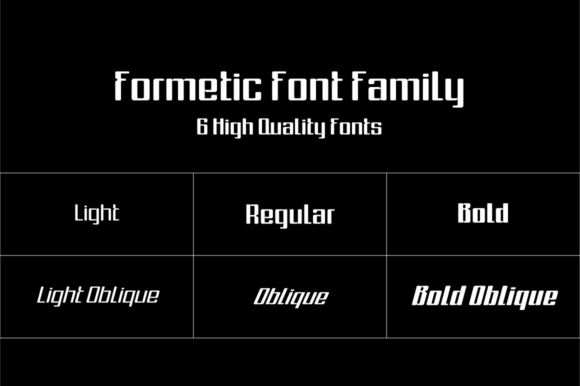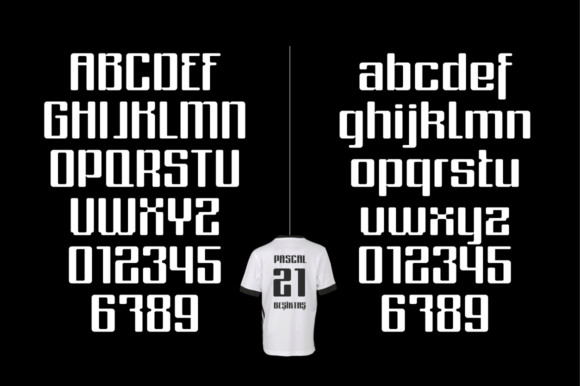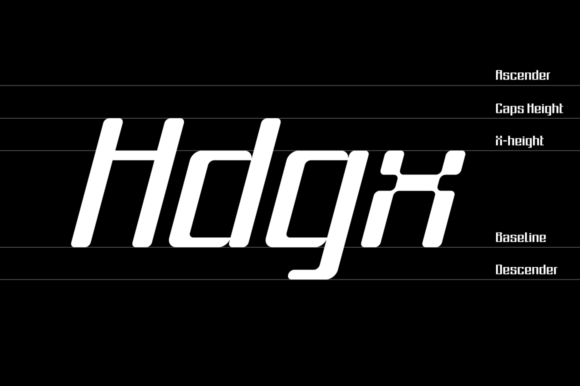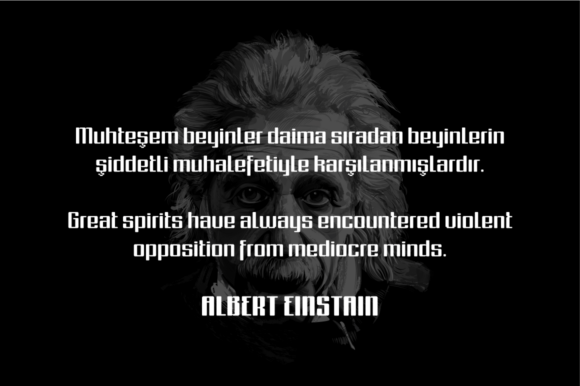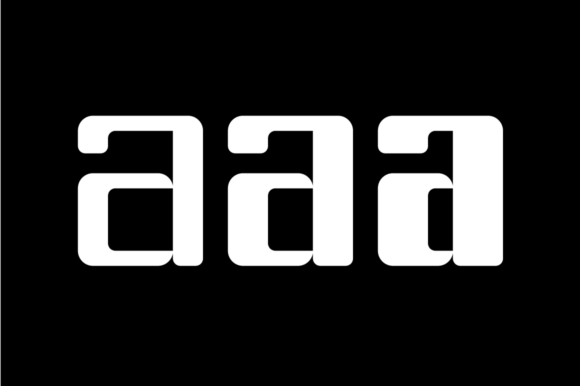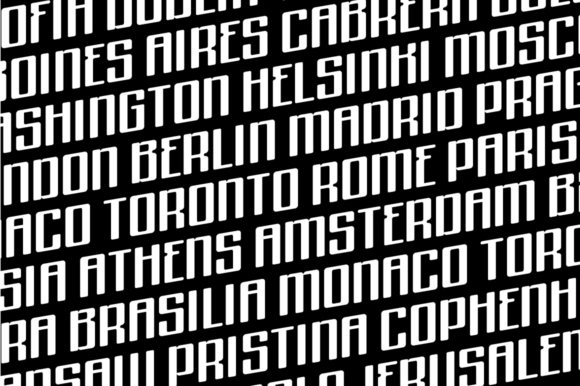
Introduction to Formetic Font
Formetic is a cool, bold and futuristic display font.
This font would be ideal for writing web designs, business cards, or pretty much anything else that requires a unique touch .
Key Features of Formetic Font
Why Choose Formetic Font?
Formetic Font offers exceptional quality and versatility, making it a valuable addition to your design toolkit. Whether you’re creating for personal projects or commercial use, Formetic Font delivers professional results.